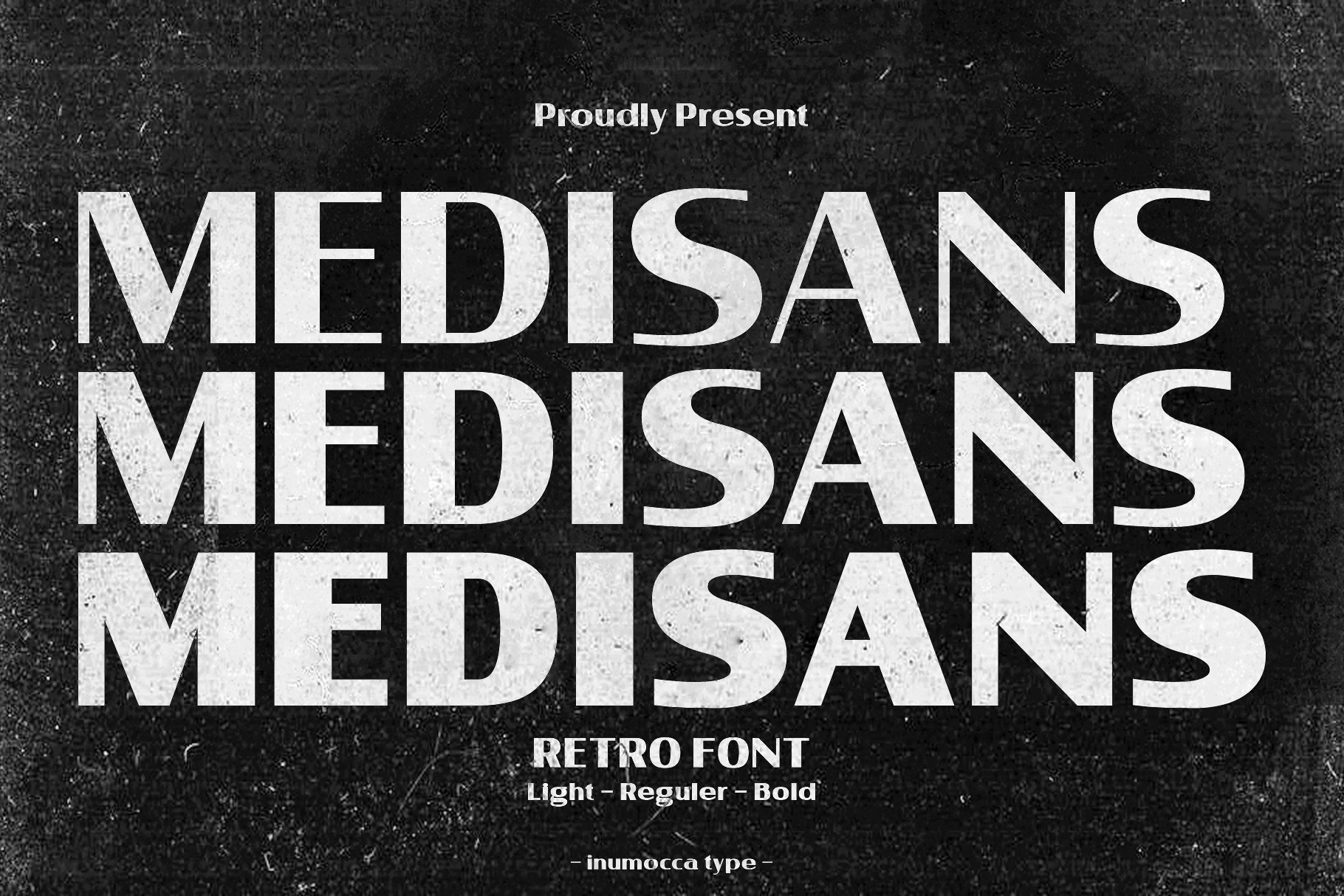
Medisans
Medisans is a display sans and sans serif font family. This typeface has three styles and was published by inumoccatype.
Medisans is A Retro Font, come from 70s style era Exellent typeface to use for covering your Project, like Branding, Movie Title, Headline Letter, Bookcover or Book Content, Magazine cover, Poster, Quotes Lettering, Logos, and more your project design.
• Unique glyphs
• Multilingual Characters Support
• UPPERCASE
• Lowercase
• Numeric
• Symbol
• Punctuation Character
• Stylistic Set (ss01)